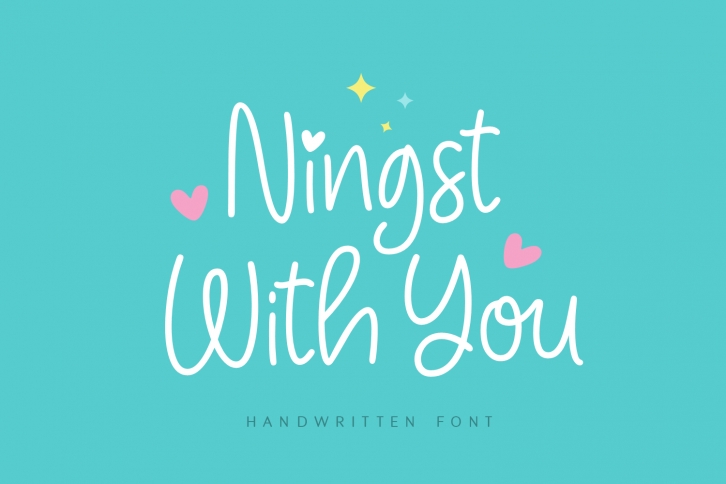
Ningst With You feels equally charming and elegant. It looks stunning on wedding invitations, thank you cards, quotes, greeting cards, logos, business cards and every other design which needs a customized touch.